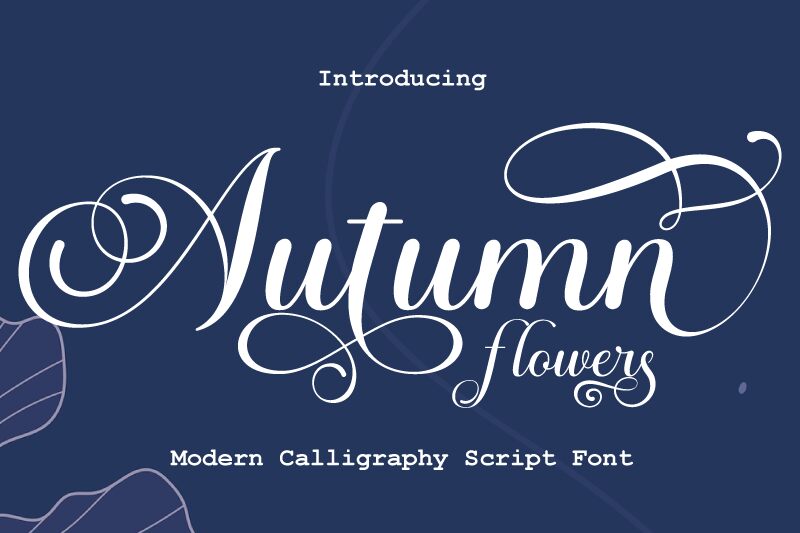
Autumn Flowers
Autumn Flowers font by Miftah Arzaq is a sophisticated free calligraphy font that brings elegance to the table in overflowing amounts. This decorative font follows a classic artistic approach with characters that can rise and fall beautifully for picturesque projects every time. Its natural curves slowly introduce an ornate touch, one that can be kept as is with its original pen-like strokes.
You won’t entirely know the power this pick offers until you use it for branding designs for beauty salons and spas or products like body and skin lotions, makeup, perfumes, soap bars, bath bombs, and others. Projects like fashion magazines/reviews covers or editorials will definitely benefit from this free selection as well!